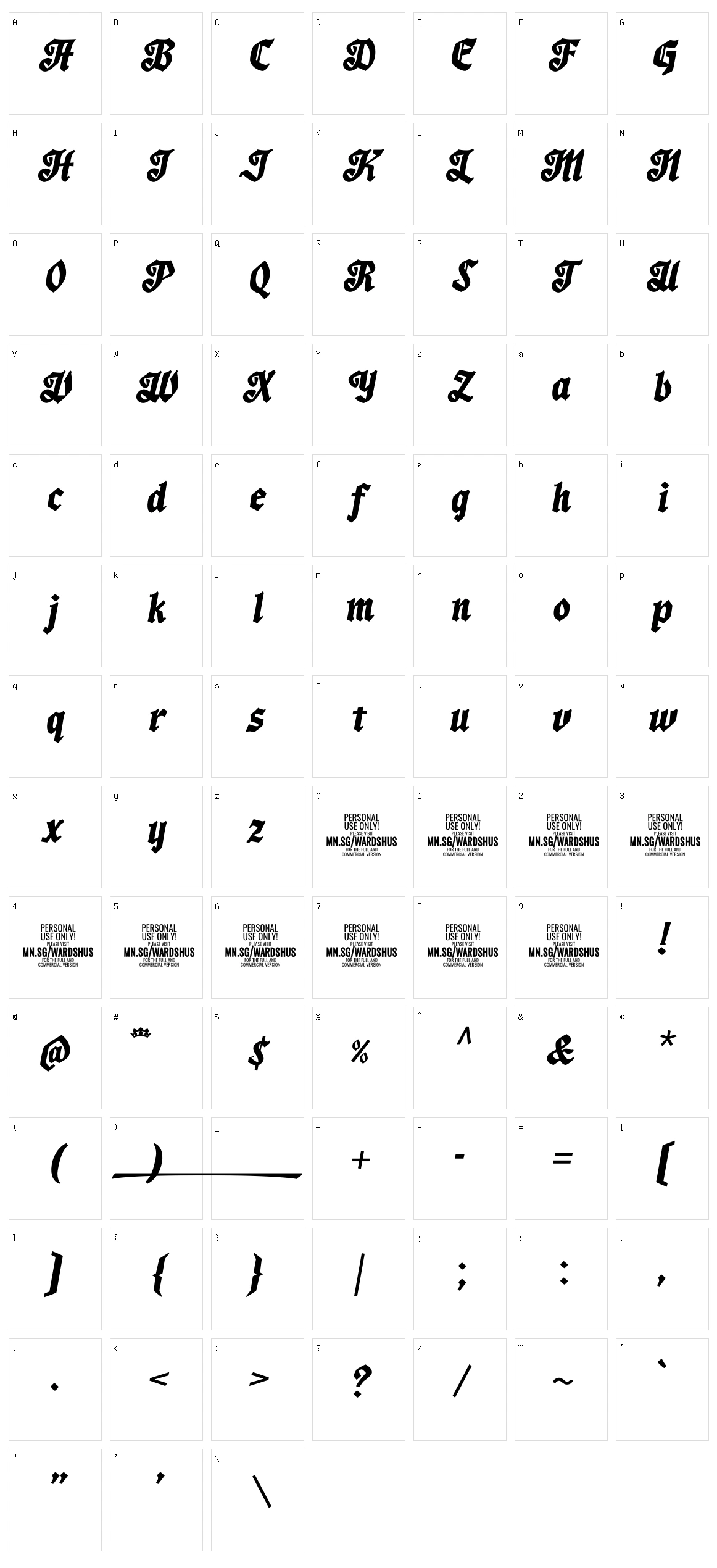
Wardshus Calligraphy
Designed by: Mans Greback
Wardshus Calligraphy is a unique blend of medieval gothic style and modern script, creating a distinctive and eye-catching blackletter font. The heavy, hand-drawn design brings an air of the Middle Ages to your projects, making it perfect for logos, posters, rock or hip-hop music album covers, and other display purposes that require a cool and striking touch.
The beautiful cursive elements add a touch of elegance to the font, while the bold strokes and intricate details give it a strong presence. Wardshus Calligraphy is a testament to the rich artistic history of the past, reimagined for contemporary design projects.
Use # after any letter to make a crown.
Example: Que#en
Use underscore _ anywhere to make a swash.
Example: Kingdom_Heroes
Use multiple underscores to make underlines of different lengths.
Example: Knig___hters
The Wardshus Calligraphy font family includes nine high-quality styles to suit various design needs:
Regular: A well-balanced, classic blackletter script style.
Regular Upright: Adds a more controlled, vertical look to the regular style.
Regular Italic: Combines the balance of regular with a touch of expressiveness.
Bold: A stronger, more assertive version of the script for impactful designs.
Bold Upright: Merges the boldness of the bold style with the structure of upright.
Bold Italic: A dynamic fusion of the bold style and the energy of italic.
Black: The heaviest, most powerful iteration of the blackletter script.
Black Upright: Combines the weight of the black style with the upright structure.
Black Italic: Adds expressiveness and flair to the intense black style.
Built with advanced OpenType functionality, Wardshus Calligraphy ensures top-notch quality and provides you with full control and customizability. It includes stylistic and contextual alternates, ligatures, and other features to make your designs truly unique.
It has extensive lingual support, covering all Latin-based languages, from Northern Europe to South Africa, from America to South-East Asia. It contains all characters and symbols you'll ever need, including all punctuation and numbers.